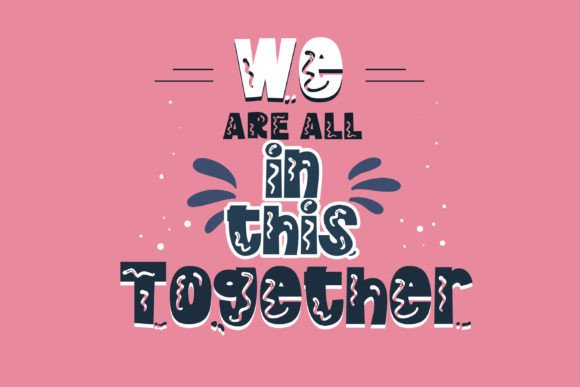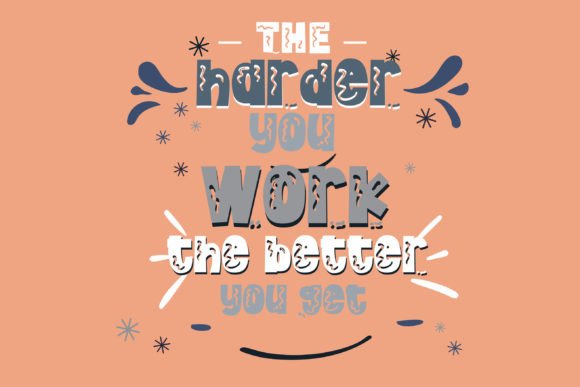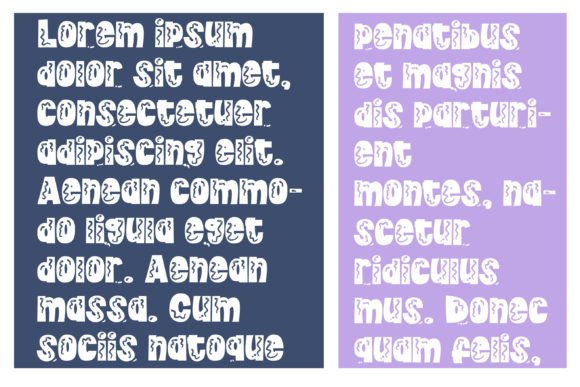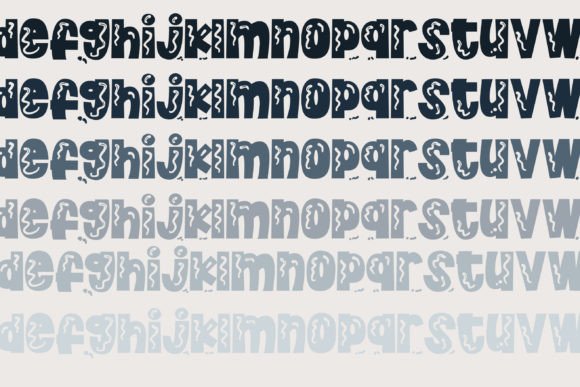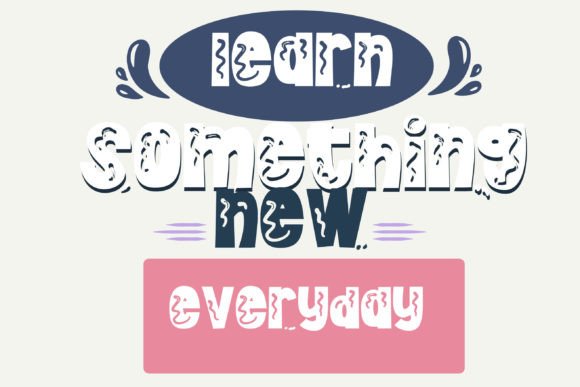
Sticking to Your Vision: The Charm of Big Glue Font
We’ve all been there – staring at a blank page, trying to come up with the perfect design for a project. The ideas flow, and before we know it, we’re surrounded by scribbled notes, torn papers, and a whole lot of glue. It’s in those moments of creative chaos that the beauty of hand-crafted fonts like Big Glue Font shines through.
Big Glue Font is a whimsical hand-crafted sans serif font, designed to evoke the feeling of handwritten notes and sticky fingers. Its unique blend of glue and typography makes it a standout choice for designers looking to add a personal touch to their projects. Whether it’s a wedding invitation, a birthday card, or a social media post, Big Glue Font is sure to make your message stick.
For designers, Big Glue Font offers a valuable opportunity to add a touch of personality to their work. Its hand-crafted nature and quirky charm make it a great choice for those looking to break away from traditional fonts and create something truly unique.
- Unique Characteristics: This font features a unique blend of modern and vintage elements, with intricate details and subtle texture, making it perfect for creating eye-catching and memorable designs.
Big Glue Font Review
Overall, I think the Big Glue Font has some great qualities, but also a few areas where it falls short. ✨
- Unique, handwritten feel that adds a personal touch to designs
- Wide range of languages supported, making it a great option for international projects
- Font is highly customizable, allowing for easy adjustments to size, color, and spacing
One of the things that really stands out about the Big Glue Font is its unique, handwritten feel. It’s perfect for adding a personal touch to designs, and the wide range of languages supported makes it a great option for international projects.
- ⚠️ Limited scalability, may become pixelated at larger sizes
- ⚠️ Not ideal for body text, as it can be difficult to read at smaller sizes
- ⚠️ May not be suitable for formal or professional designs, due to its casual, handwritten feel
While the Big Glue Font is a great option for certain projects, it’s not perfect. Its limited scalability and not ideal for body text are some of its biggest limitations. However, when used correctly, it can be a great addition to a design.
Big Glue Font is ideal for creating bold, eye-catching headings and titles. Use it to draw attention to important information or to add a touch of whimsy to your designs.
For best results, pair Big Glue Font with a clean and simple sans-serif font for body text.
What is the recommended font size for headings in Big Glue Font?
We recommend using font sizes between 18-48 points for headings in Big Glue Font. This range provides sufficient contrast and visual hierarchy for headings, making it easier for readers to scan and understand your content. You can adjust the font size to suit your design needs, but this range provides a good starting point.